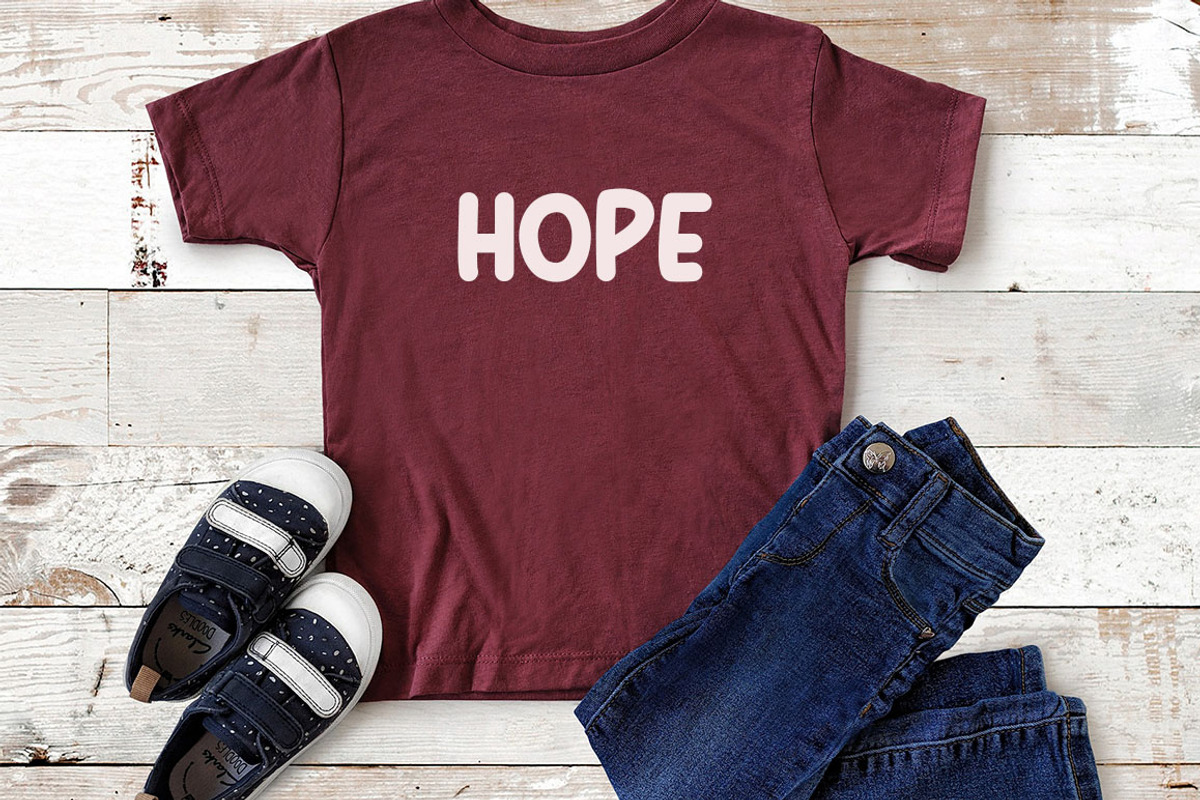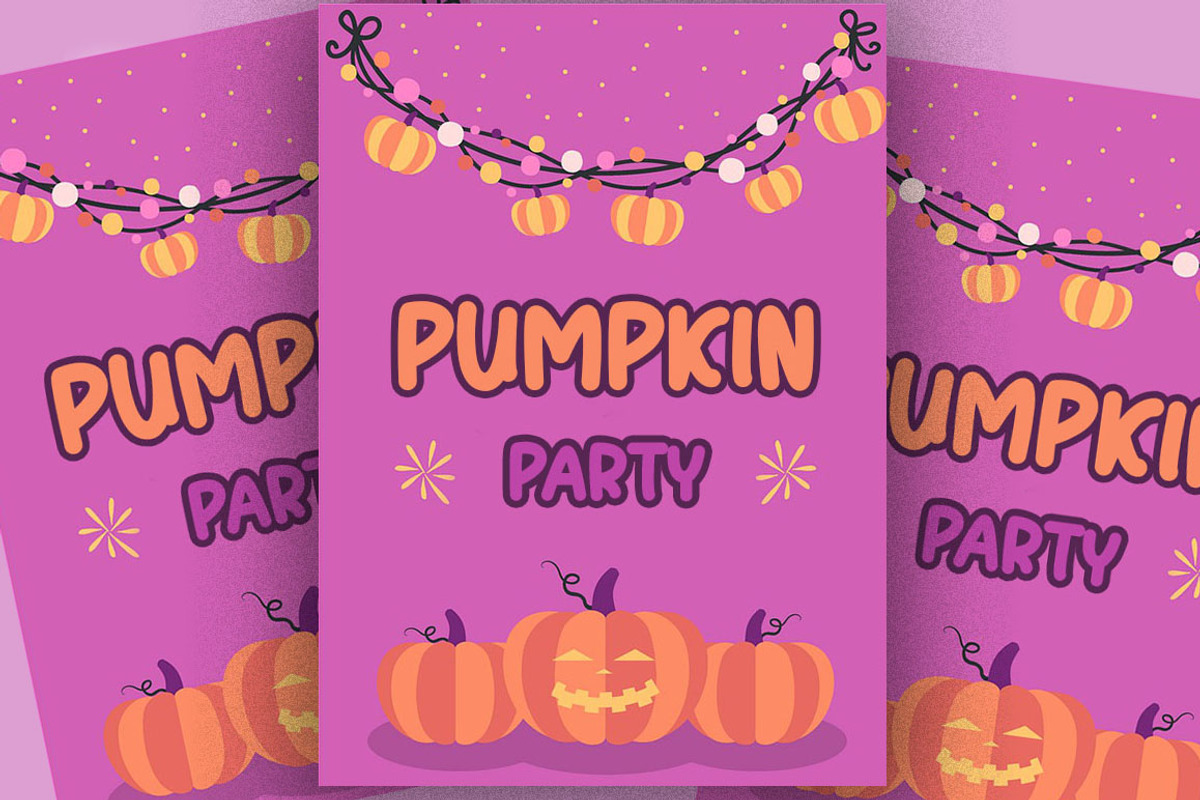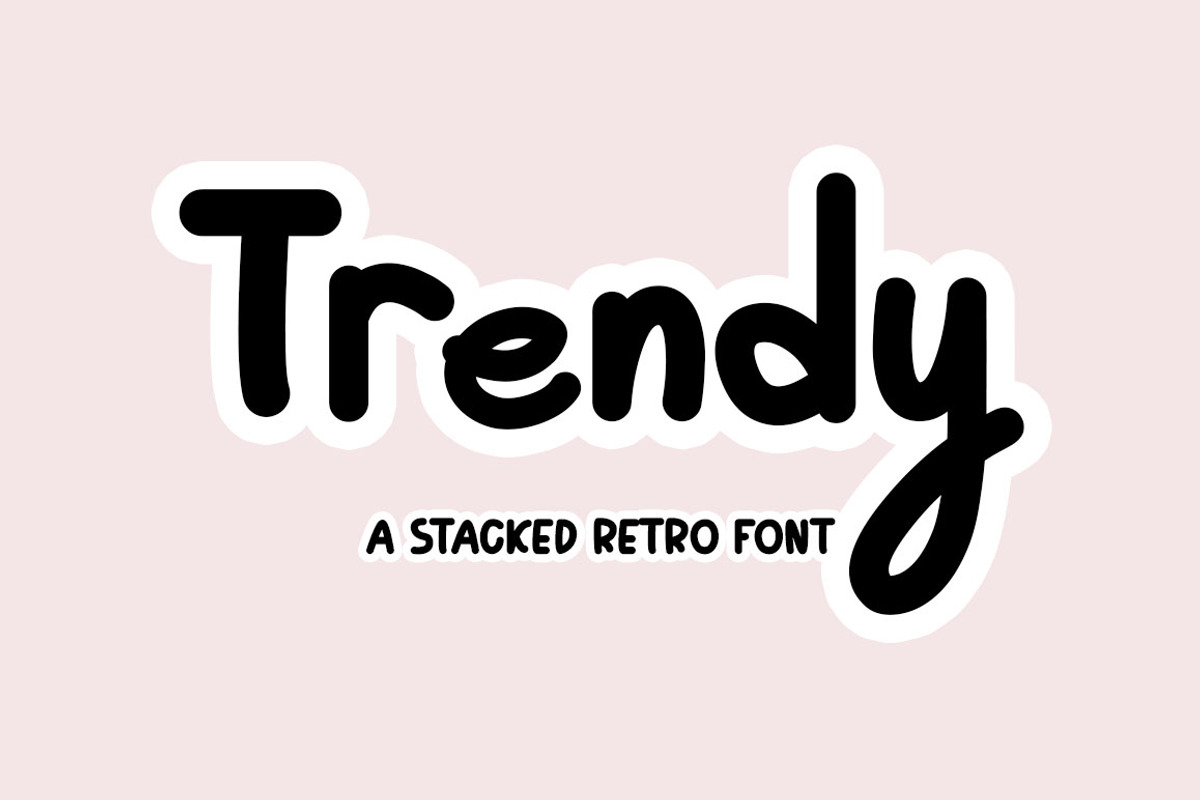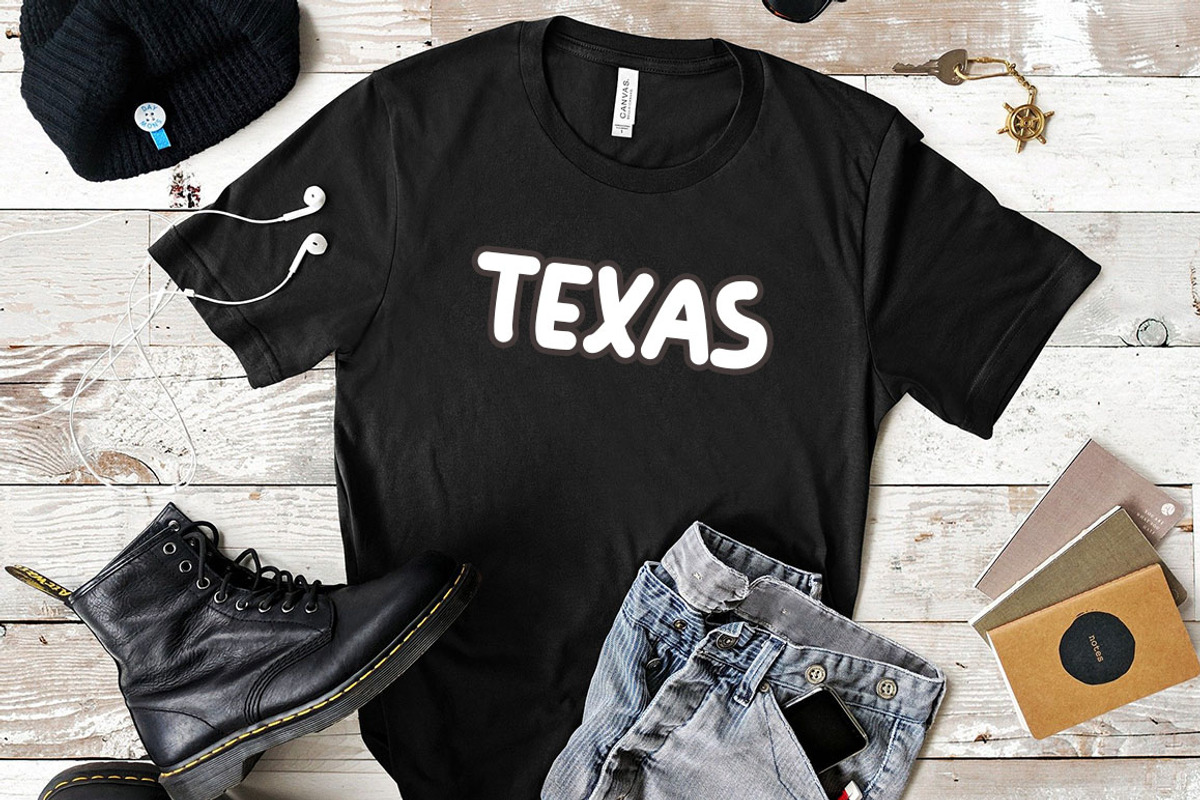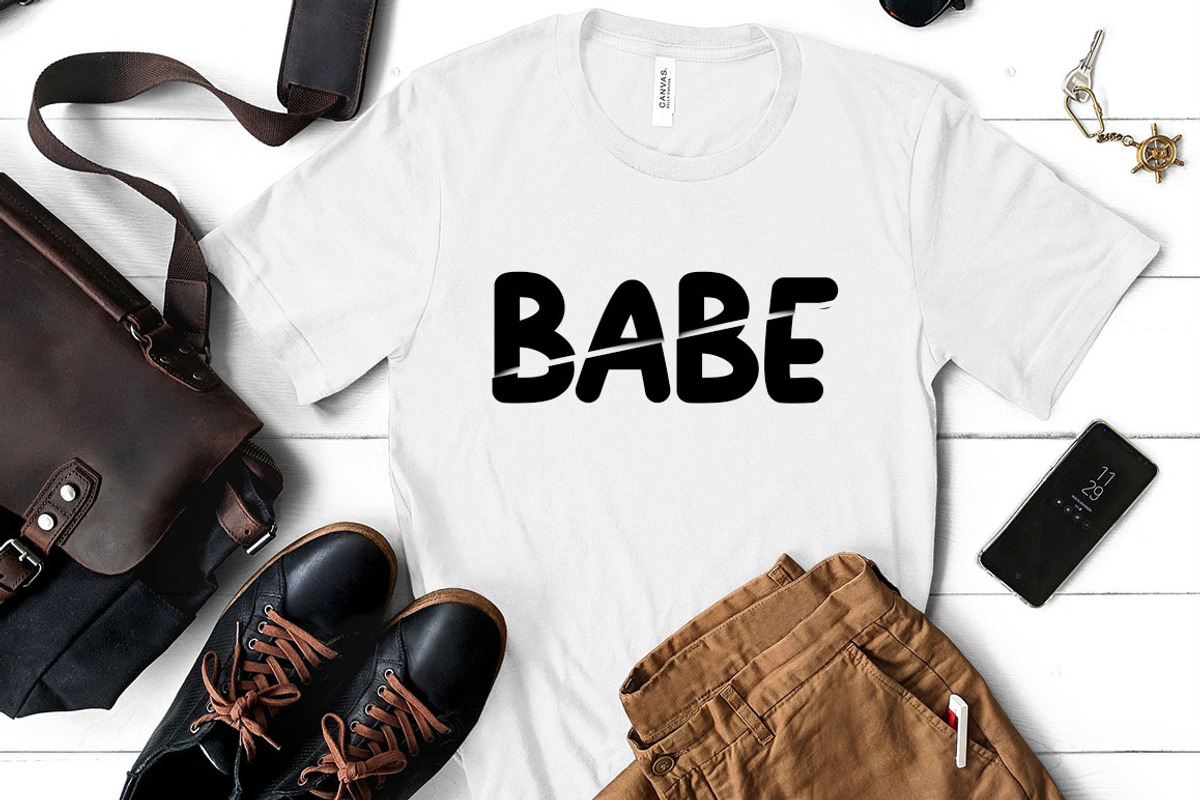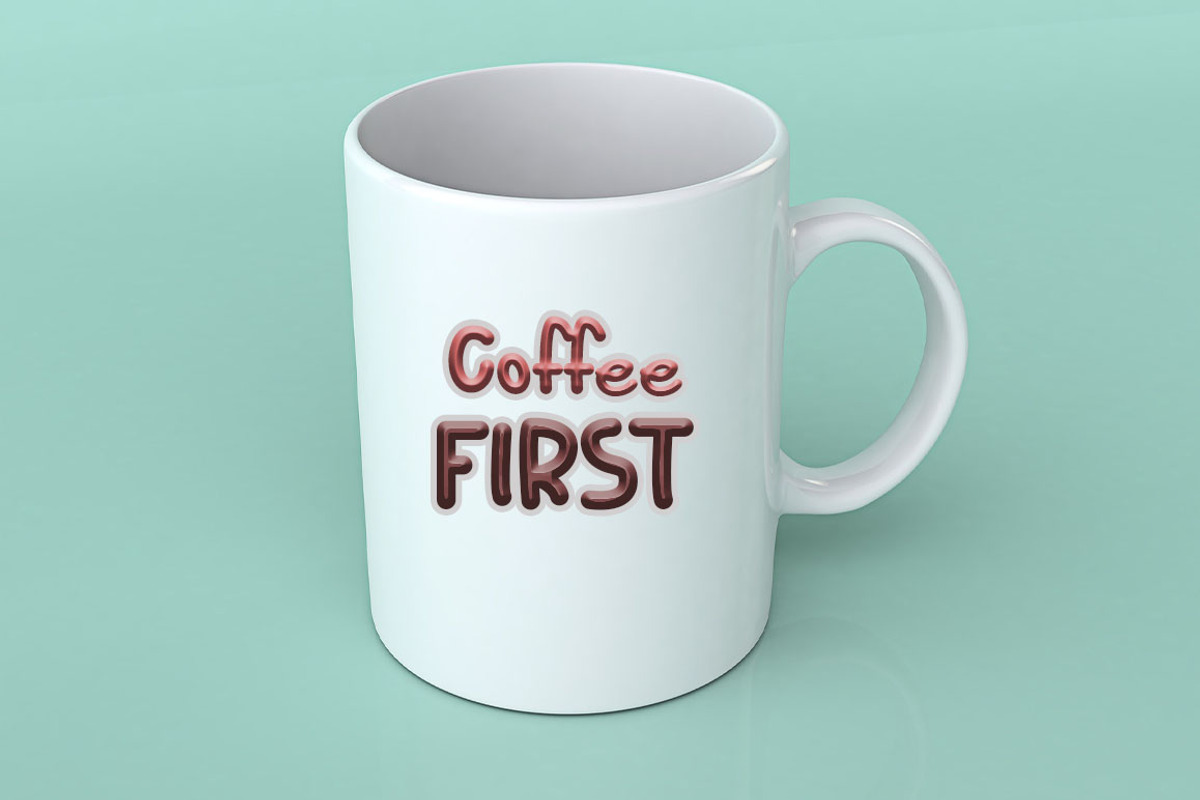
Trendy | Playful font
Trendy - a super fun and playful hand-lettered bold typeface. It is perfect for headings, flyer, greeting cards, product packaging, book cover, printed quotes, logotype, apparel design, album covers, etc.